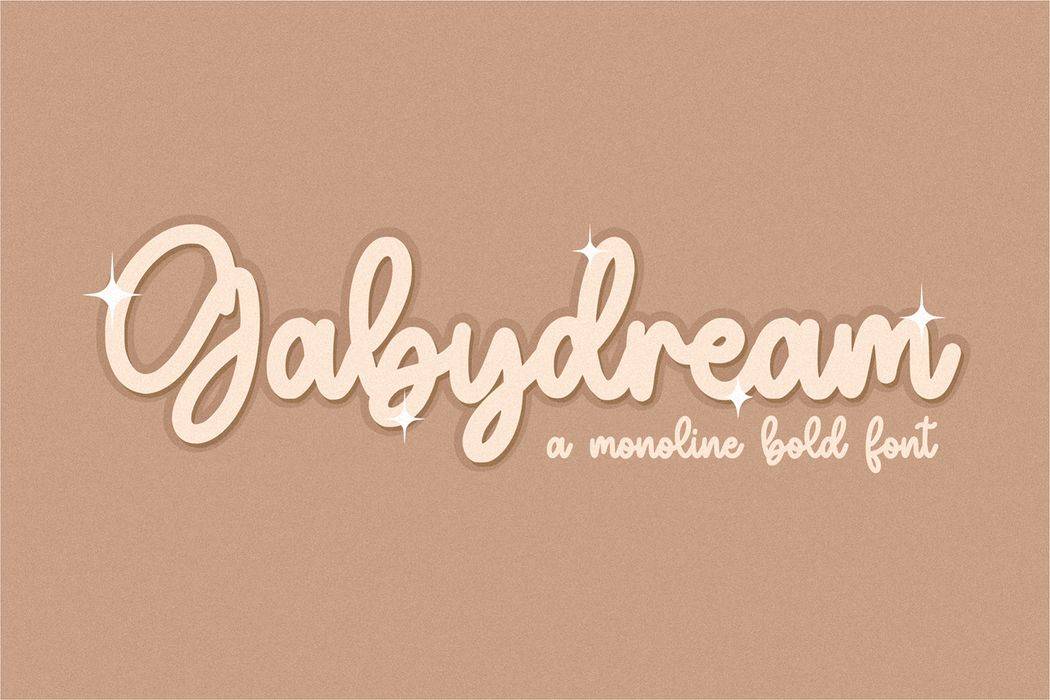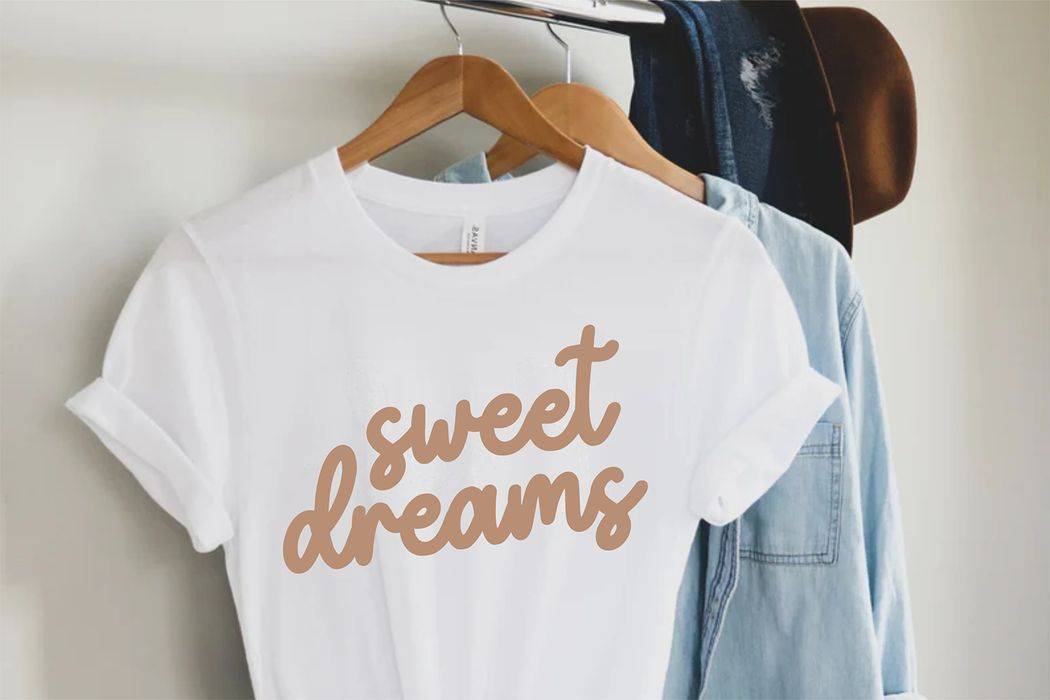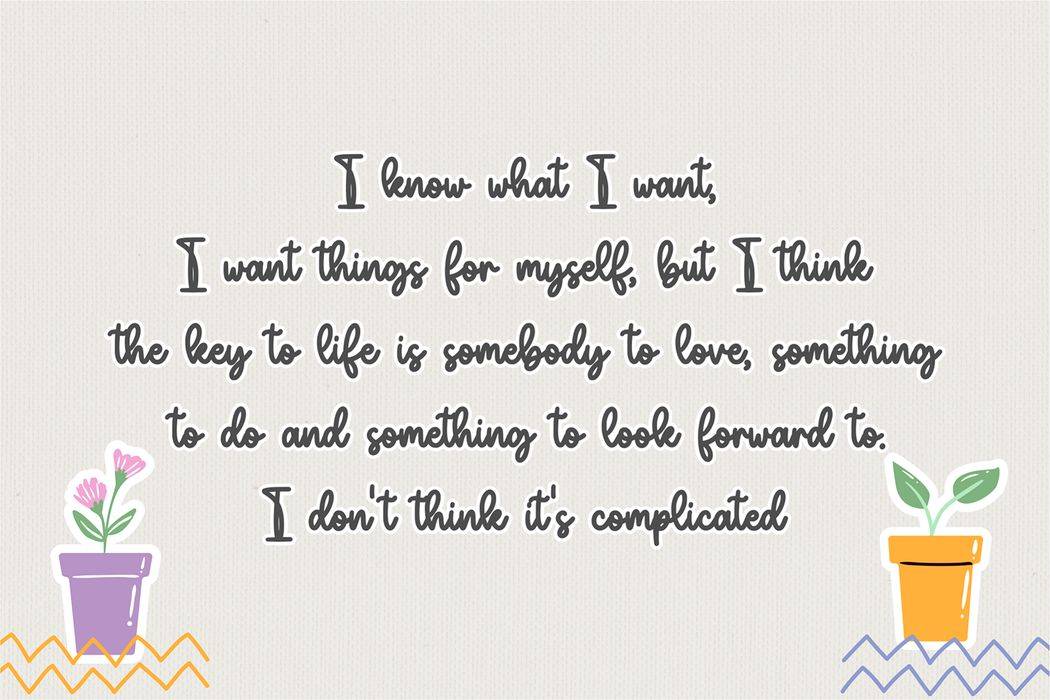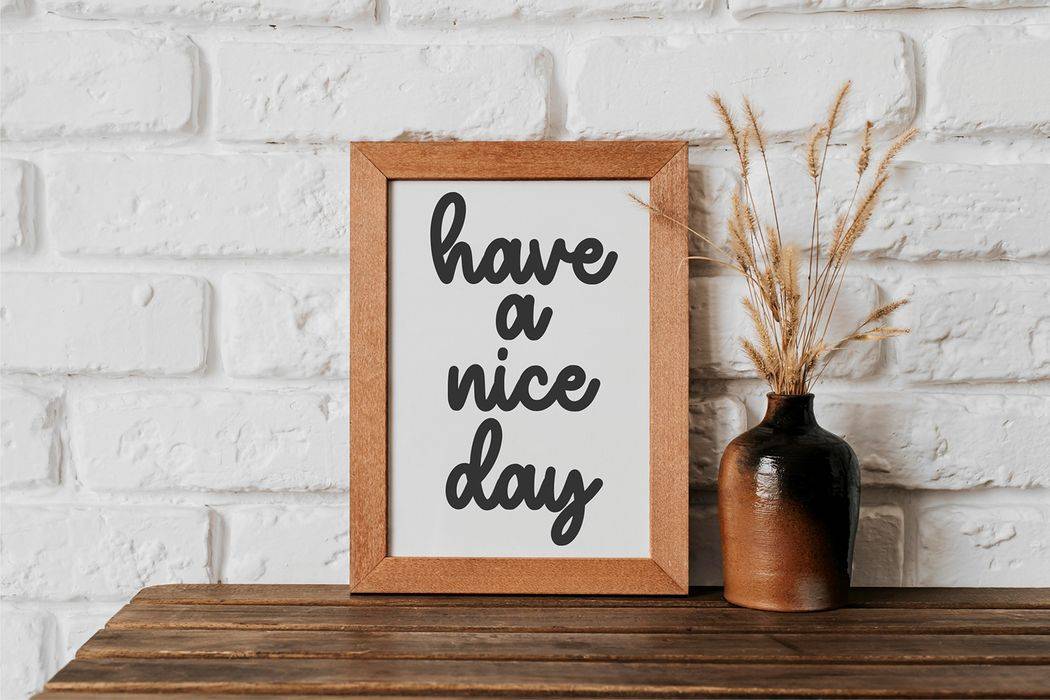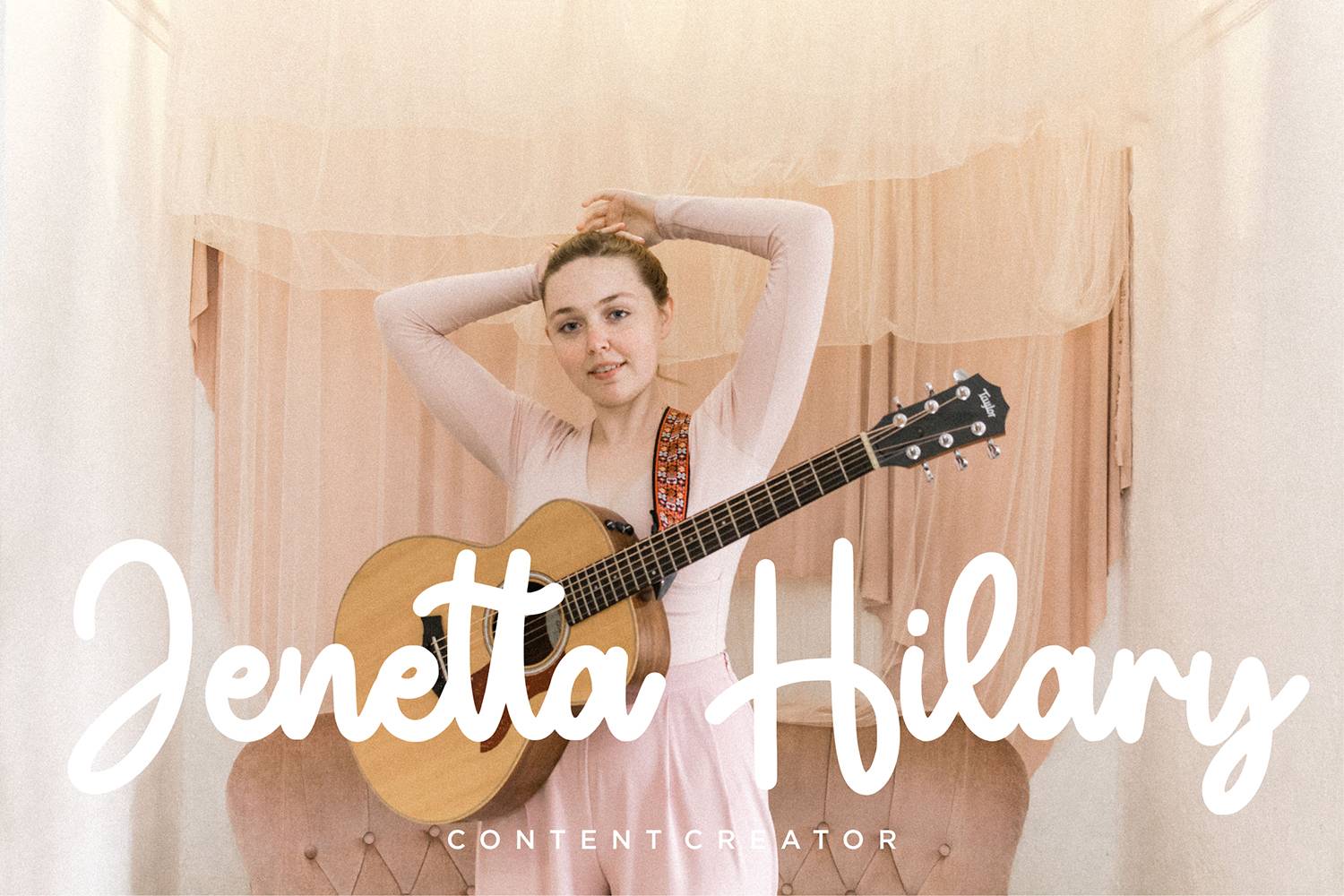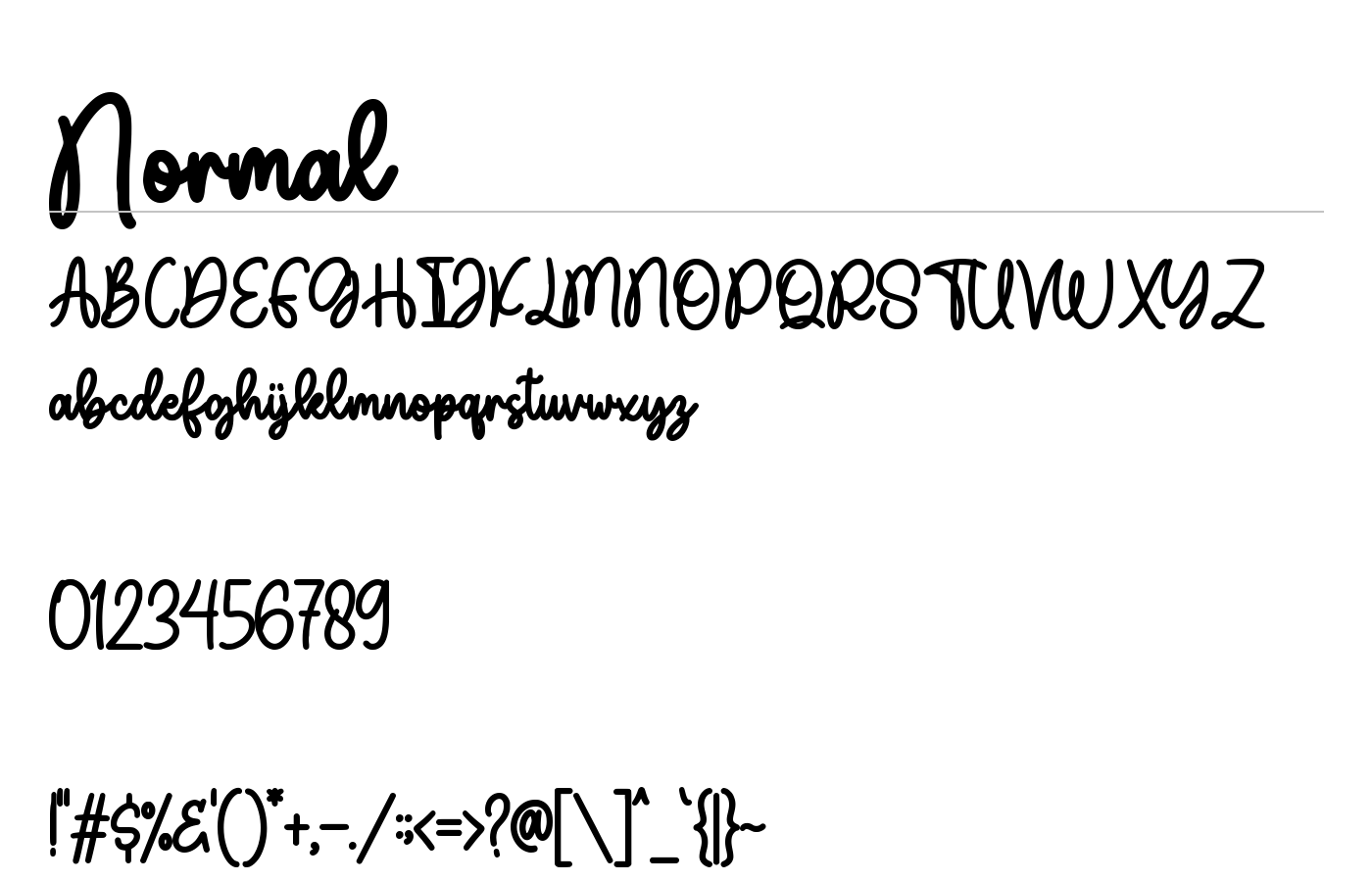
Gabydream is a playful and casual handwritten font featuring a smooth, slightly irregular stroke that mimics natural penmanship. Its lively character shapes and moderate x-height make it ideal for creative, friendly designs such as invitations, personal branding, or children's products. This font adds a warm, approachable feel while maintaining good readability for various informal and fun visual projects.
Gabydream Font
About Gabydream Font